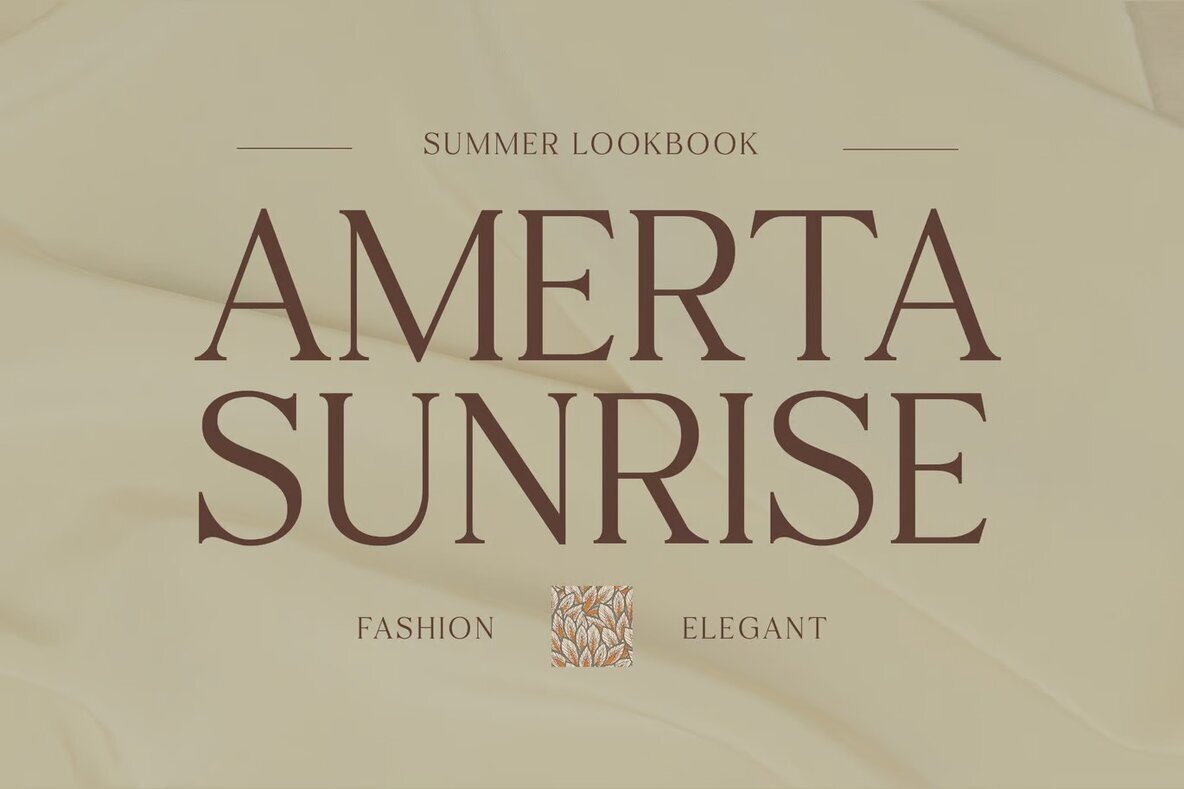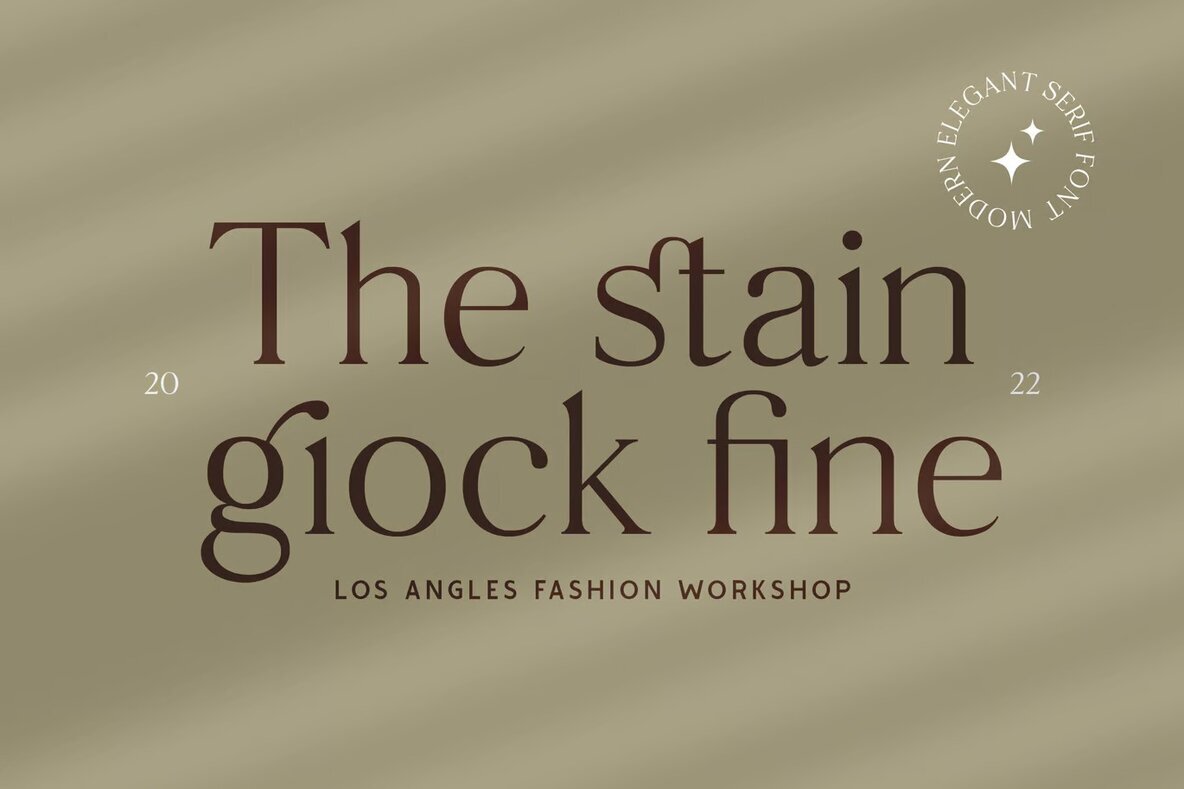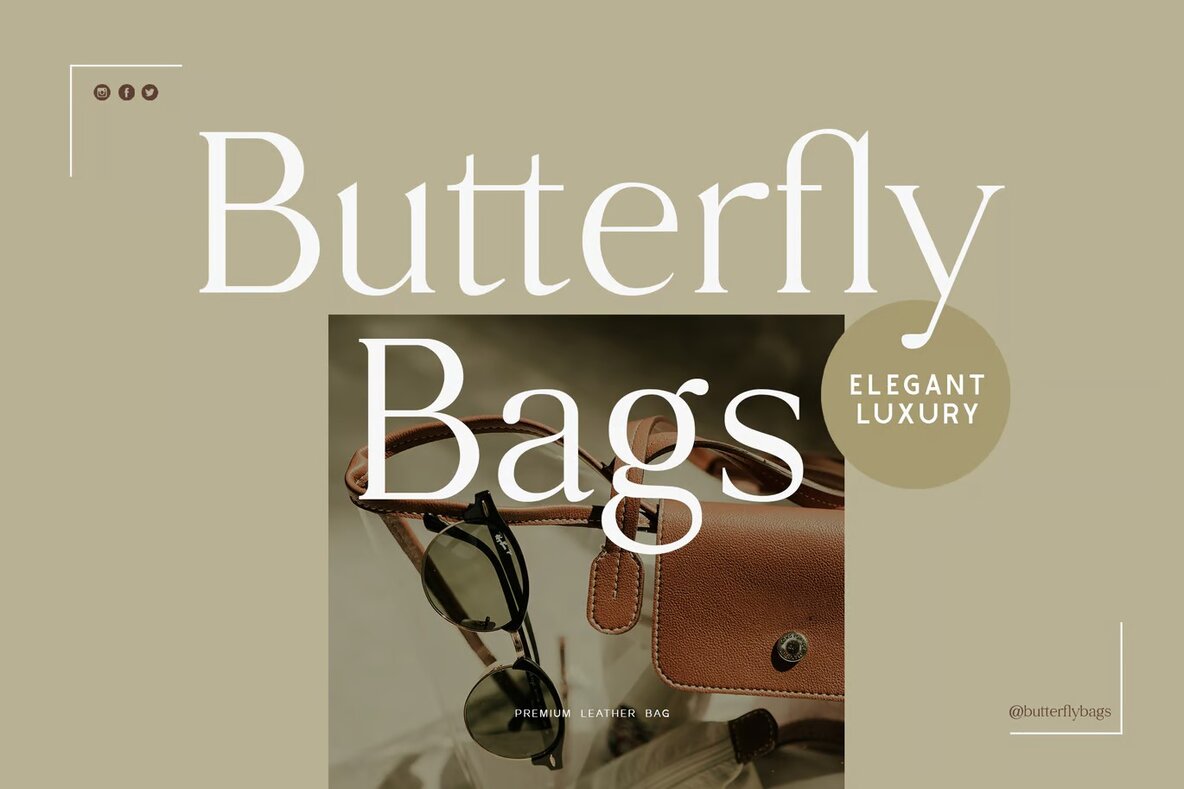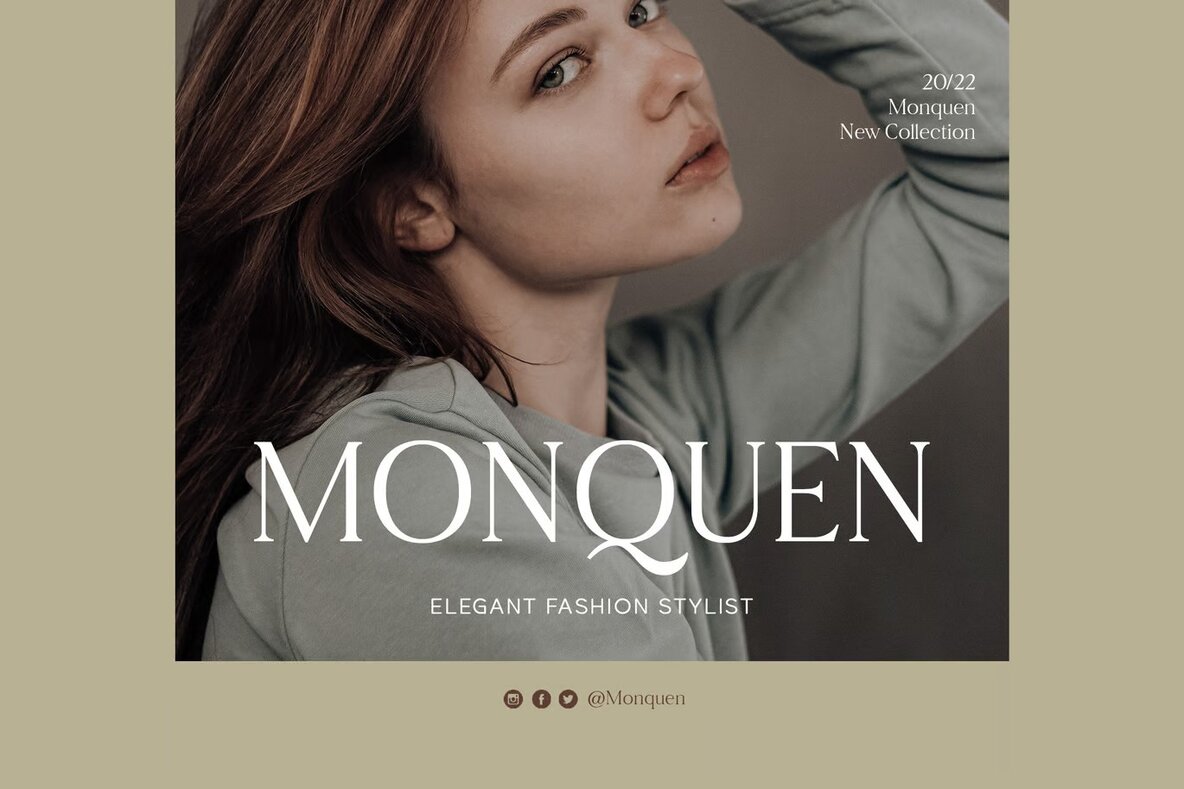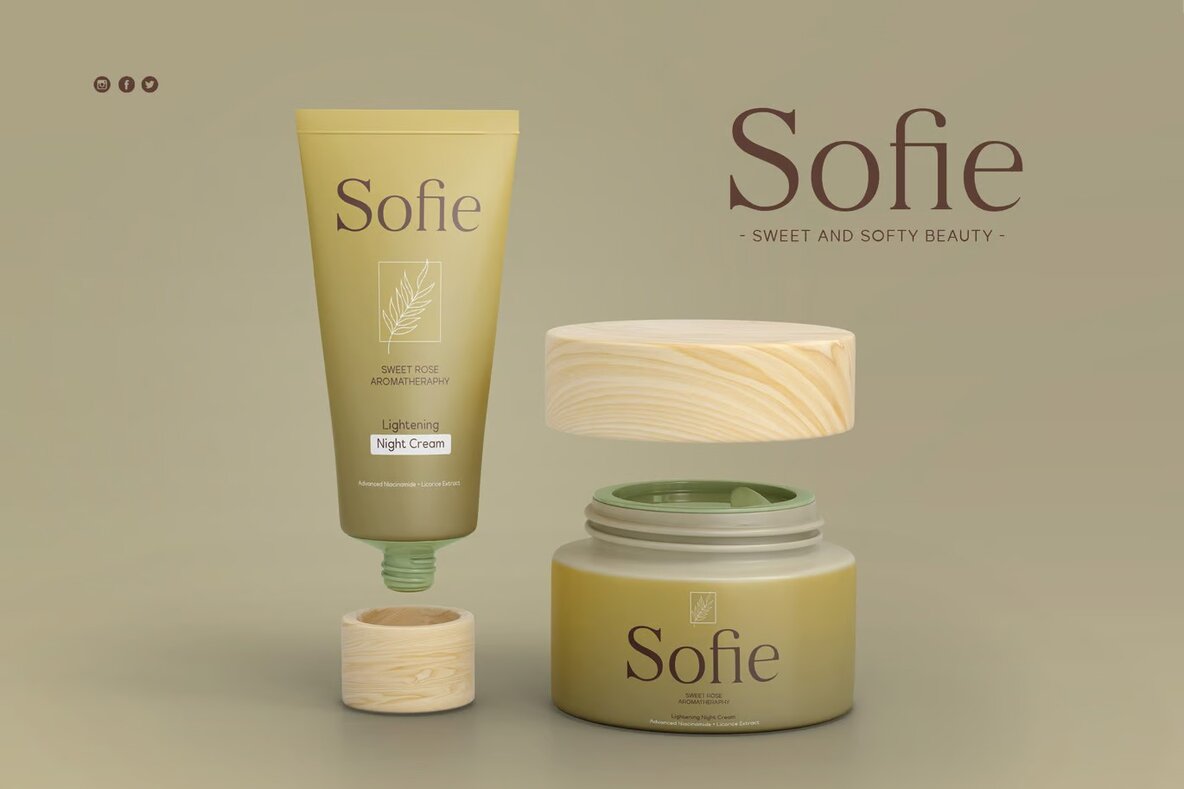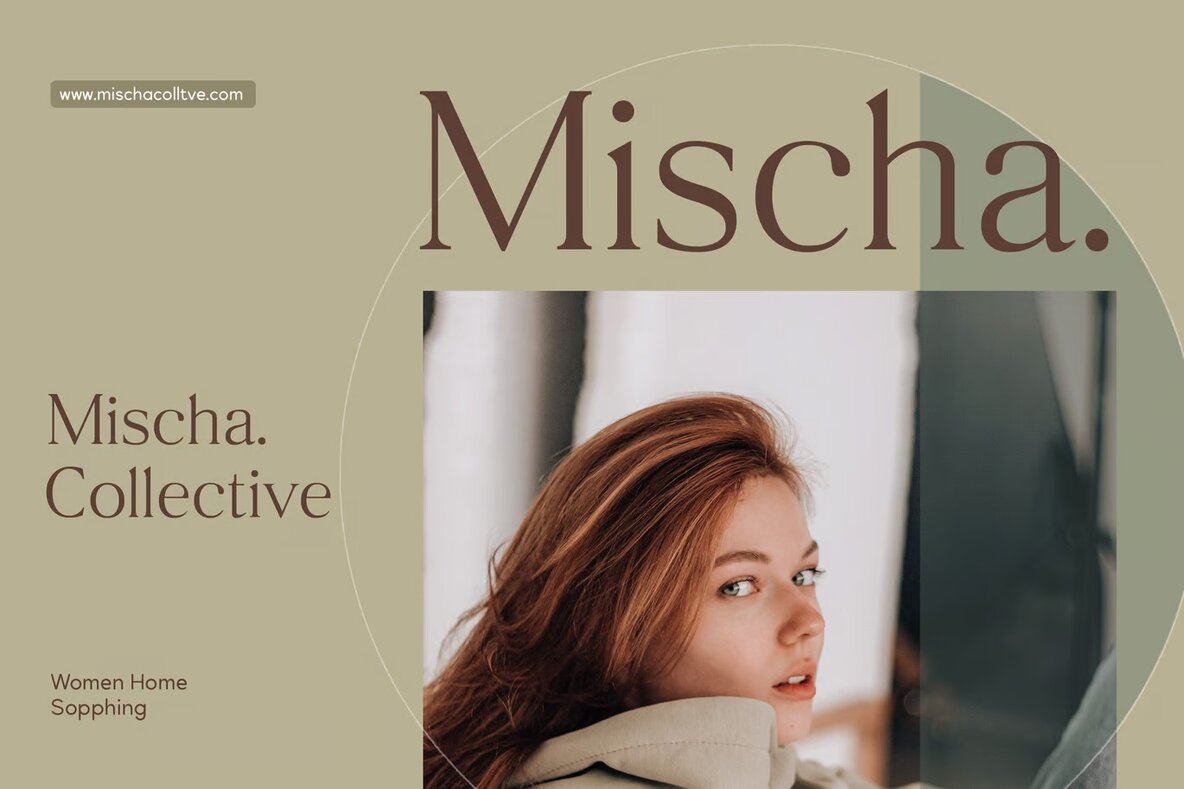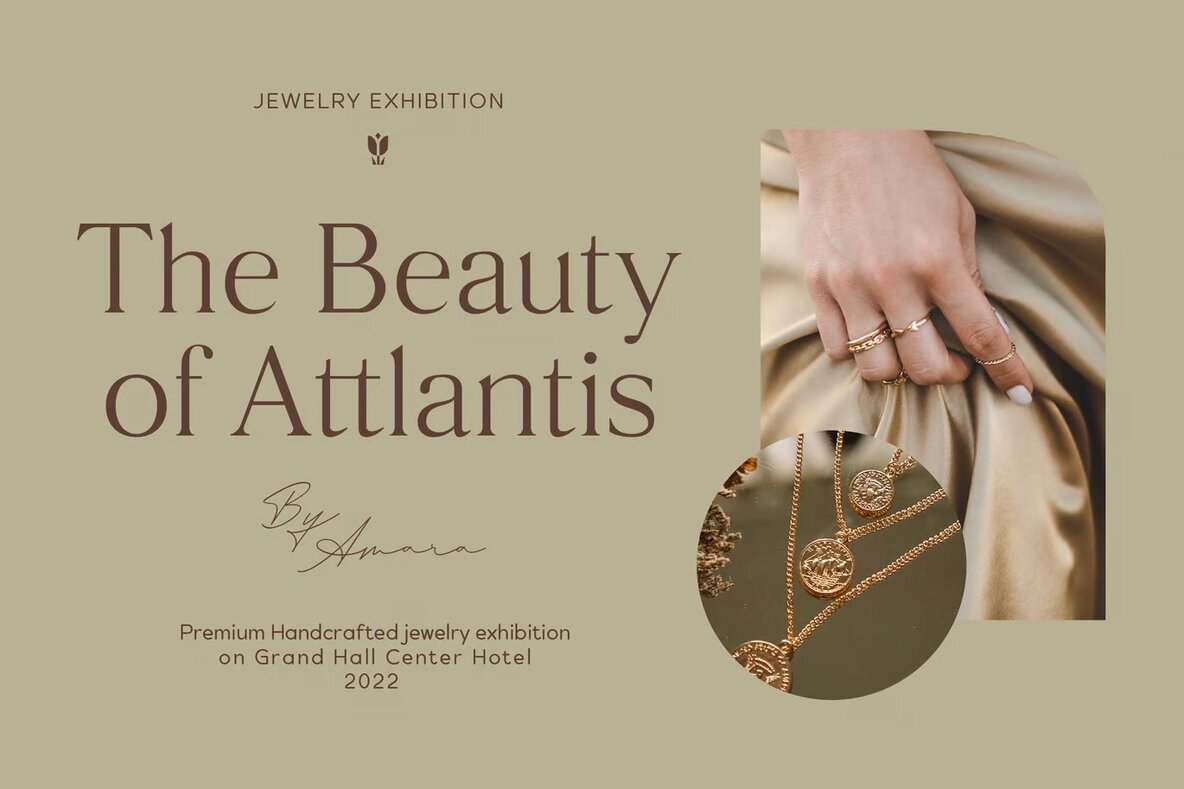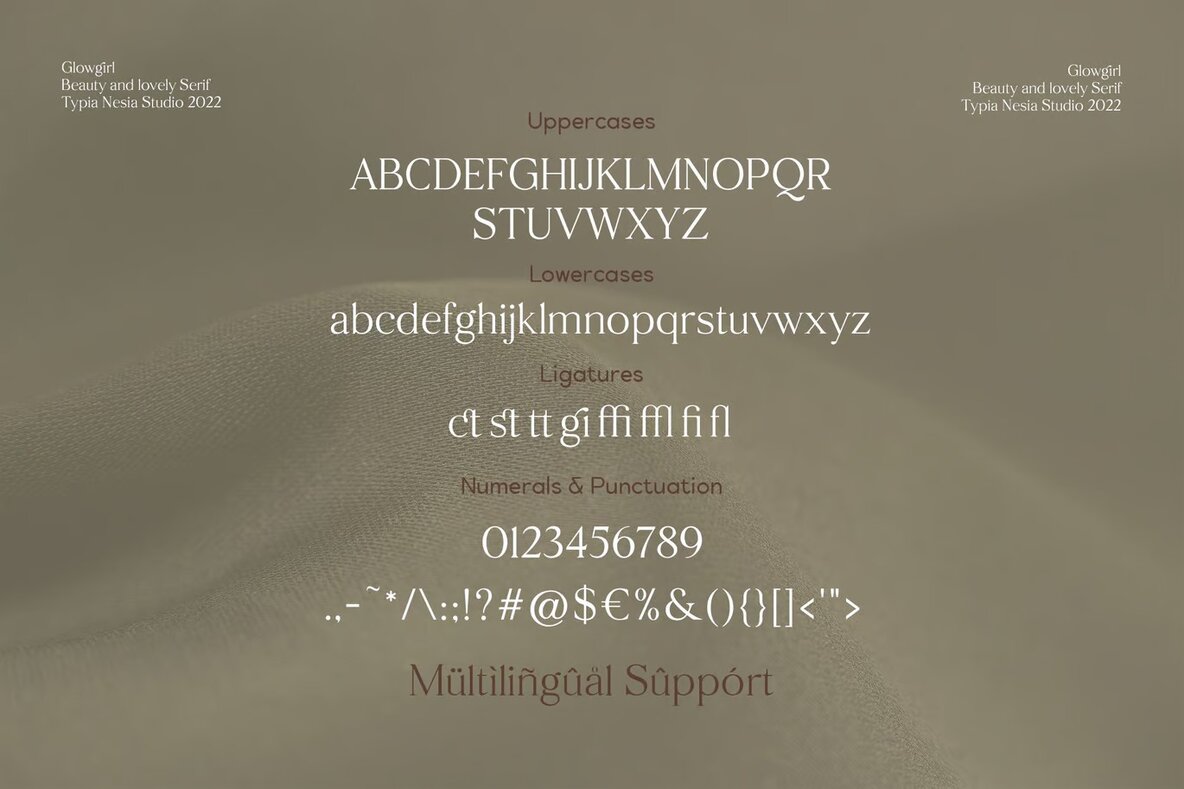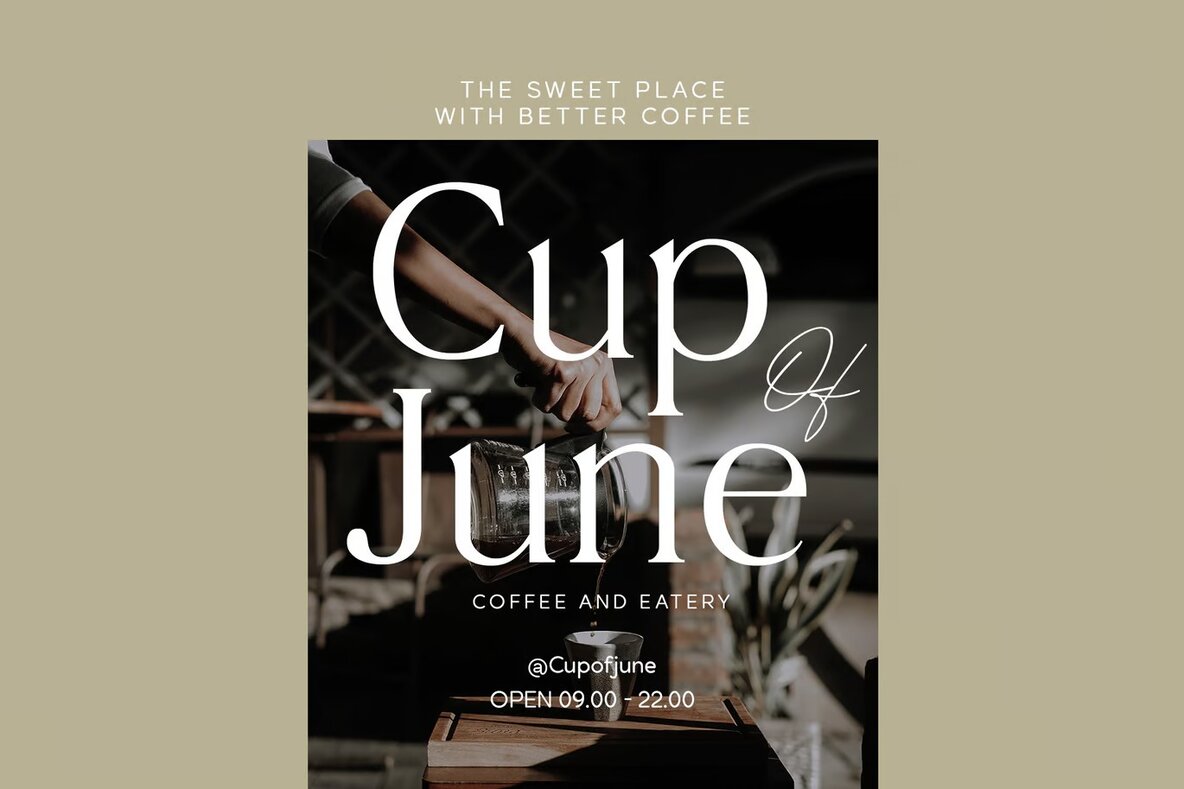
Glowgirl Font
Glowgirl Regular
Glowgirl is a modern and elegant serif font that exudes beauty and luxury. Its expressive style makes it an excellent choice for a range of design projects. Whether you're working on luxury logos, branding for a cosmetic line, or classy editorial layouts, Glowgirl provides a sophisticated touch. It is particularly suited for projects aiming to convey femininity and high-end appeal, such as woman-centric magazines and fashion promotions.
The versatility of Glowgirl extends to branding for art galleries, museums, and boutiques, offering an elegant aesthetic that enhances the perceived value of any brand. It's perfect for creative endeavors like stationery and blog designs or for crafting beautiful card invitations and art quotes. Additionally, Glowgirl serves well in modern advertising, home décor prints, and book titles, ensuring your projects maintain a coherent and stylish look across various contexts.